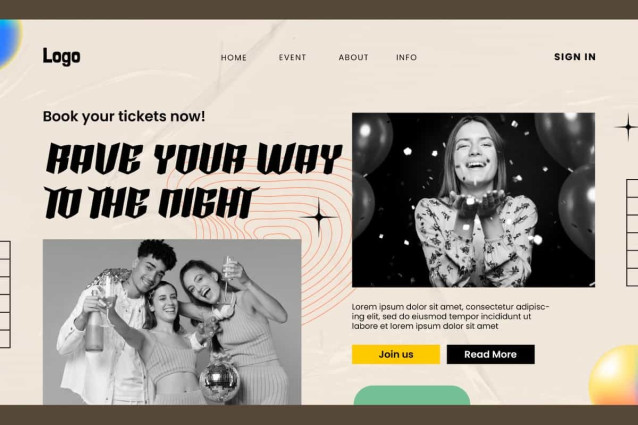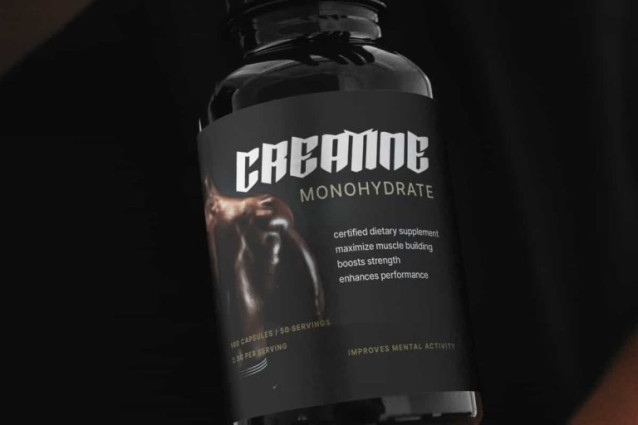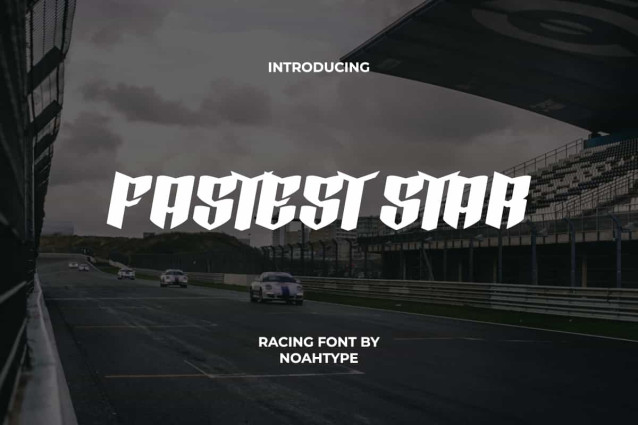
Fastest Star Font
Fastest Star Font is a racing concept font with a unique shape, created by NoahType. This font has bold characters so it is still easy to read with an attractive shape. This font will be suitable for a lot of projects, such as custom design, signage, label, business card, catalog, cover, poster, quotes, website, and more!
Fastest Star Font includes full set of Uppercase and Lowercase Basic Characters, Numerals and Punctuation. This font has an attractive appearance that will make you believe it is the perfect choice for many industries, such as sports, racing, game, automotive, advertisement, café, event organizer, fashion, printing, publishing, etc.